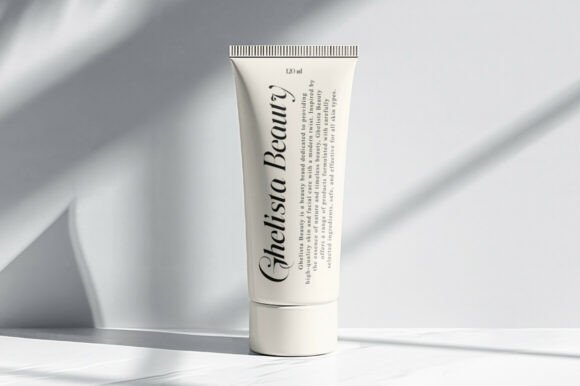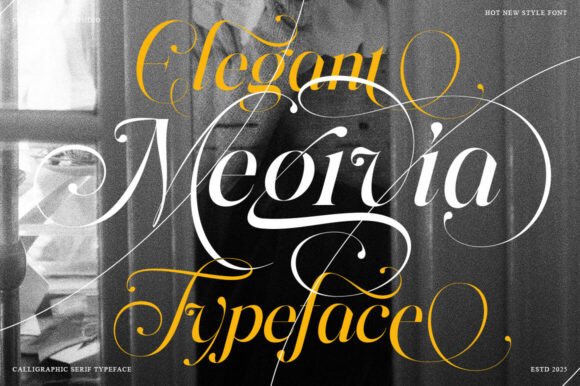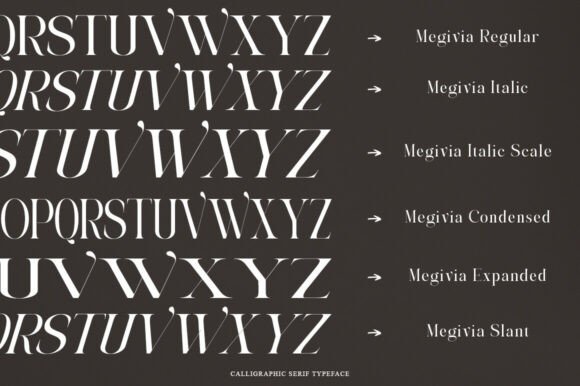
Introduction to Megivia Font Font
Fonts play a crucial role in design, and the Megivia Font font is a typeface that brings both character and versatility to any project. Whether you’re working on a branding project, a website, or a print design, the Megivia Font font offers a unique style that can elevate your work.
Introducing Megivia, a captivating calligraphy serif typeface that masterfully marries timeless grace with contemporary polish.
The strength of Megivia lies in its artful balance of romantic flair and clean structure, created through thoughtful strokes and nuanced particulars The typeface boasts an array of styles – Regular, Expanded, Condensed, Scaled Italic, and Slant, each skilfully designed with sweeping curves and alternates that are meticulously drawn.
Key Features of Megivia Font Font
Why Choose Megivia Font Font?
The Megivia Font font is more than just a typeface – it’s a design tool that helps you communicate your message with style and clarity. Its unique character set and versatile design make it suitable for a wide range of applications, from elegant invitations to bold headlines.
With its carefully crafted letterforms and balanced proportions, the Megivia Font font ensures readability and visual appeal across all mediums.
What makes Megivia Font font special?
The Megivia Font font stands out with its unique design, exceptional readability, and versatility across various design applications.